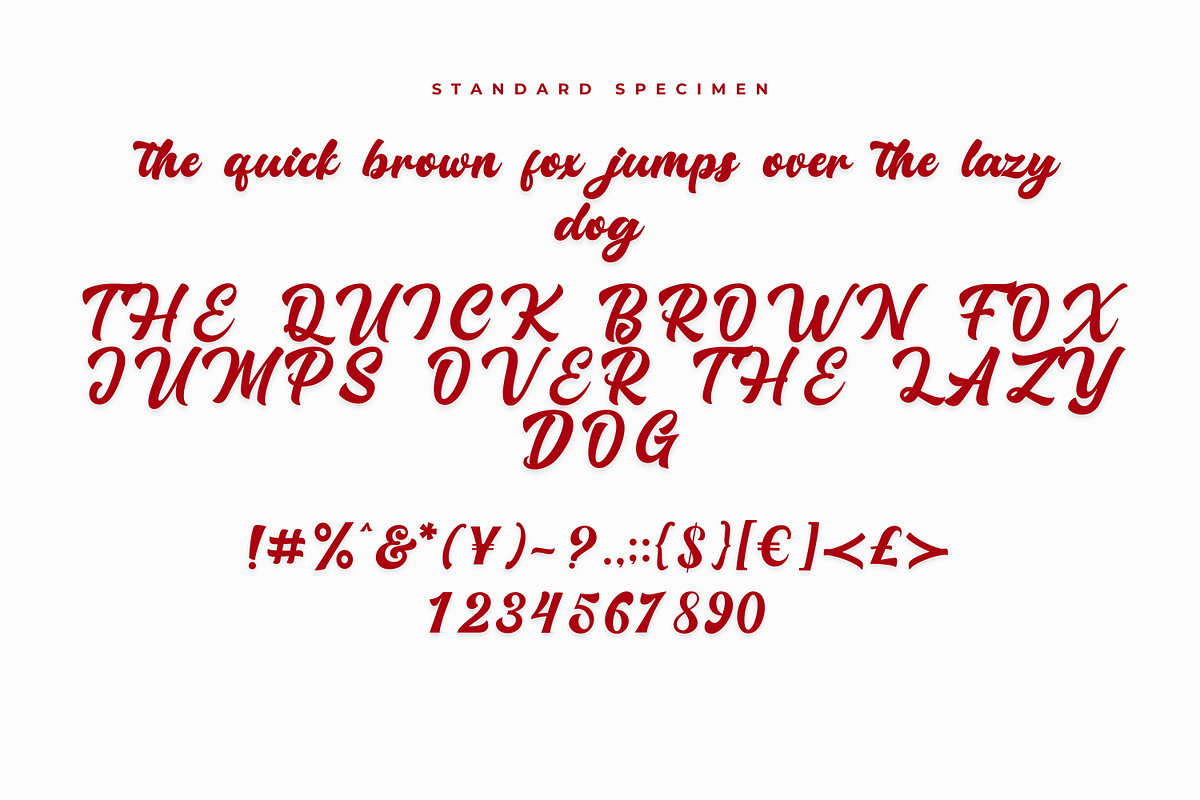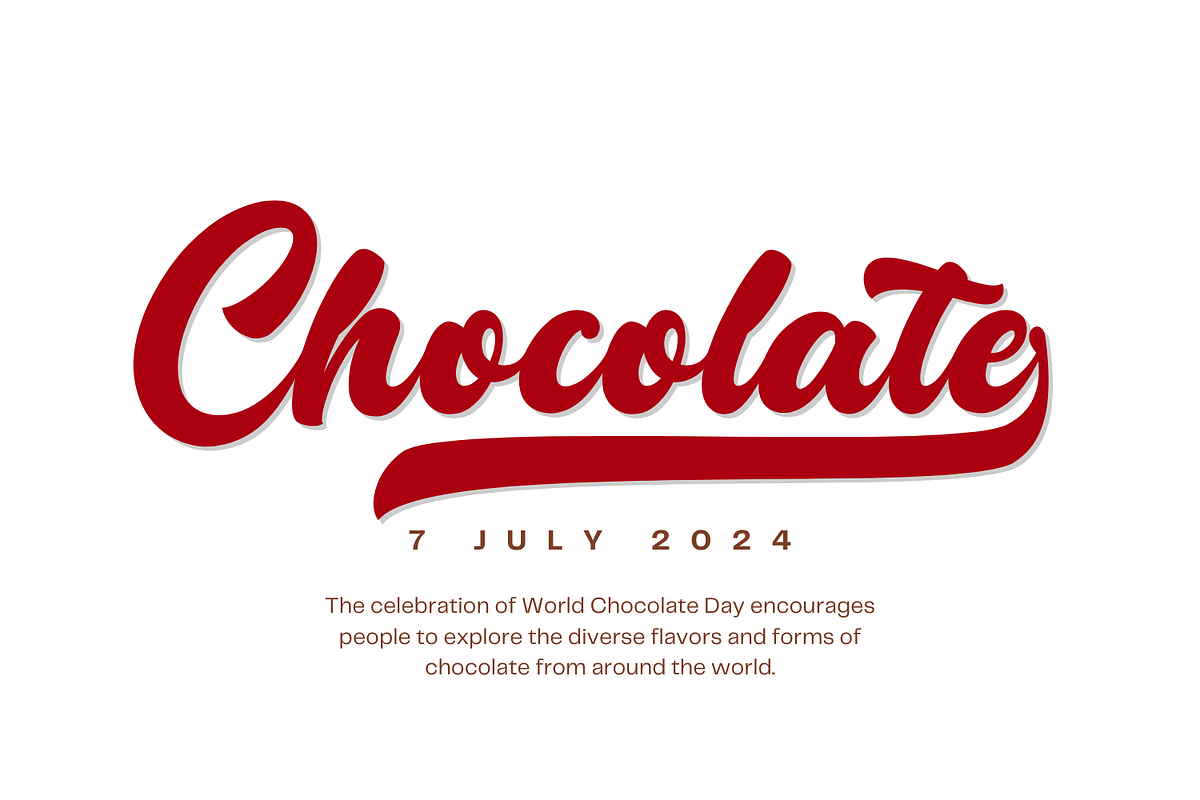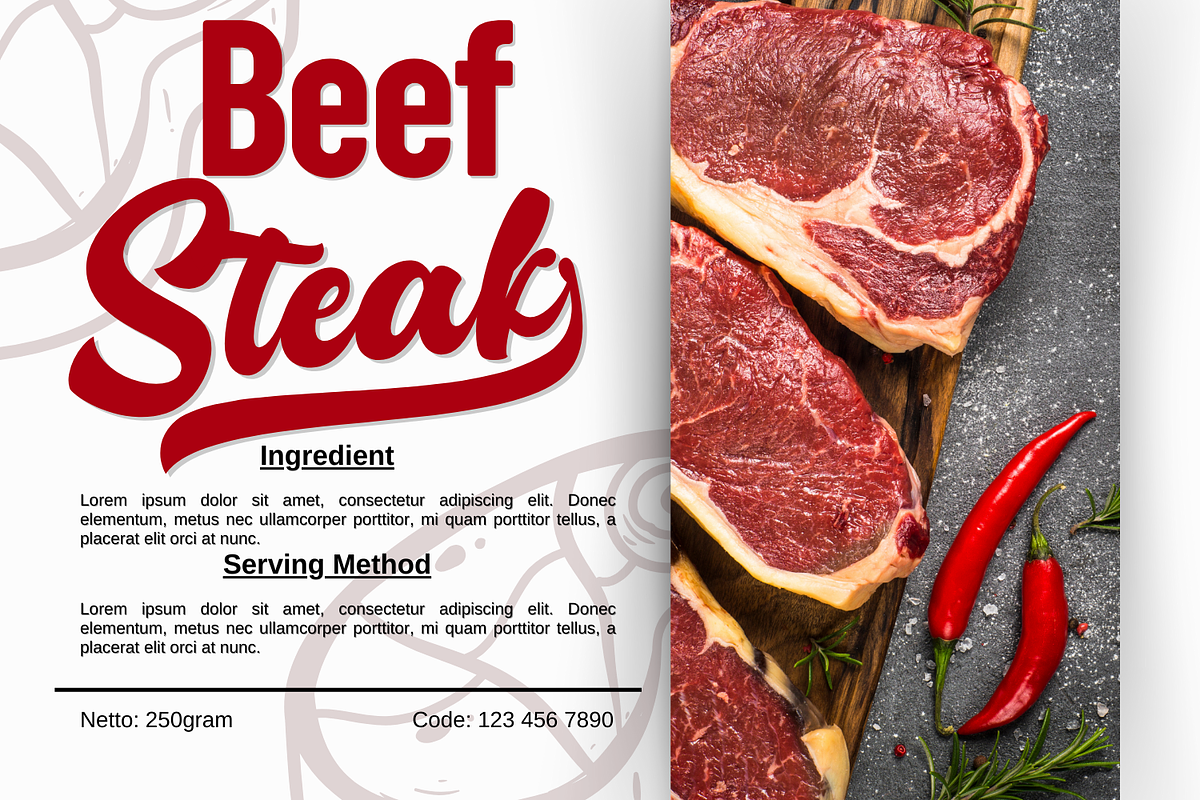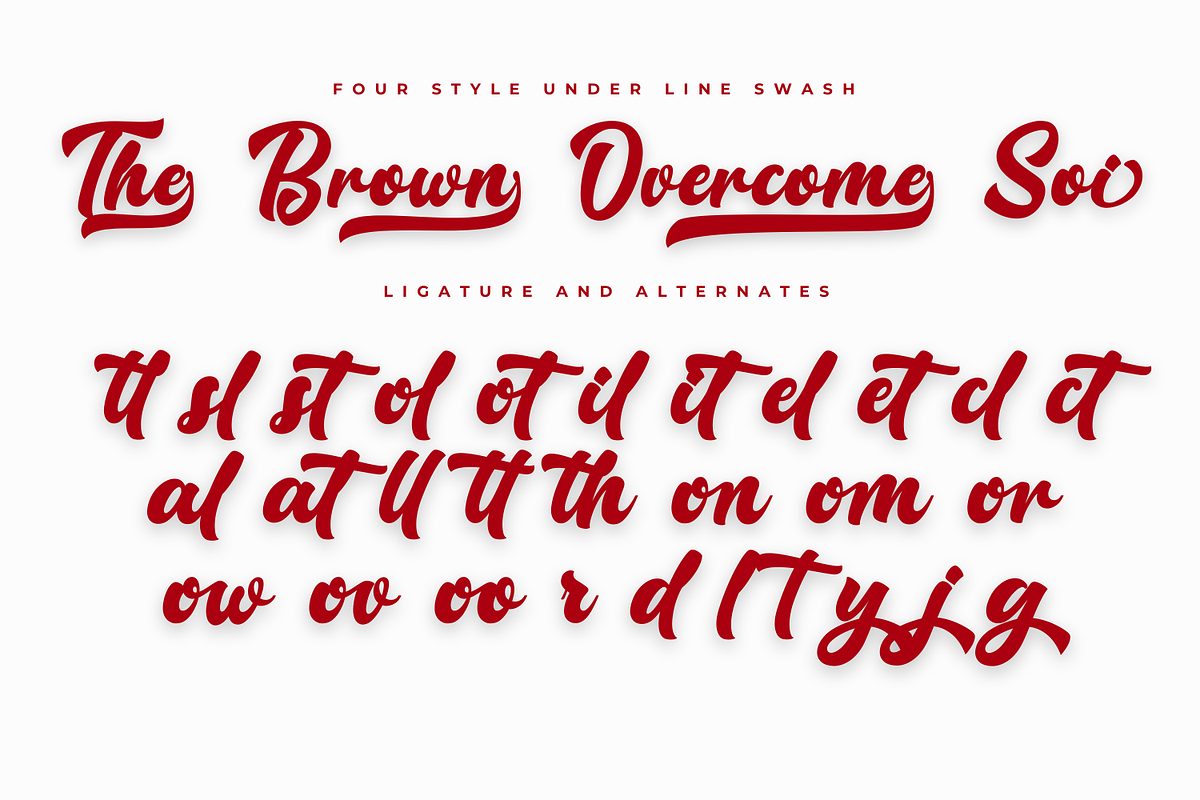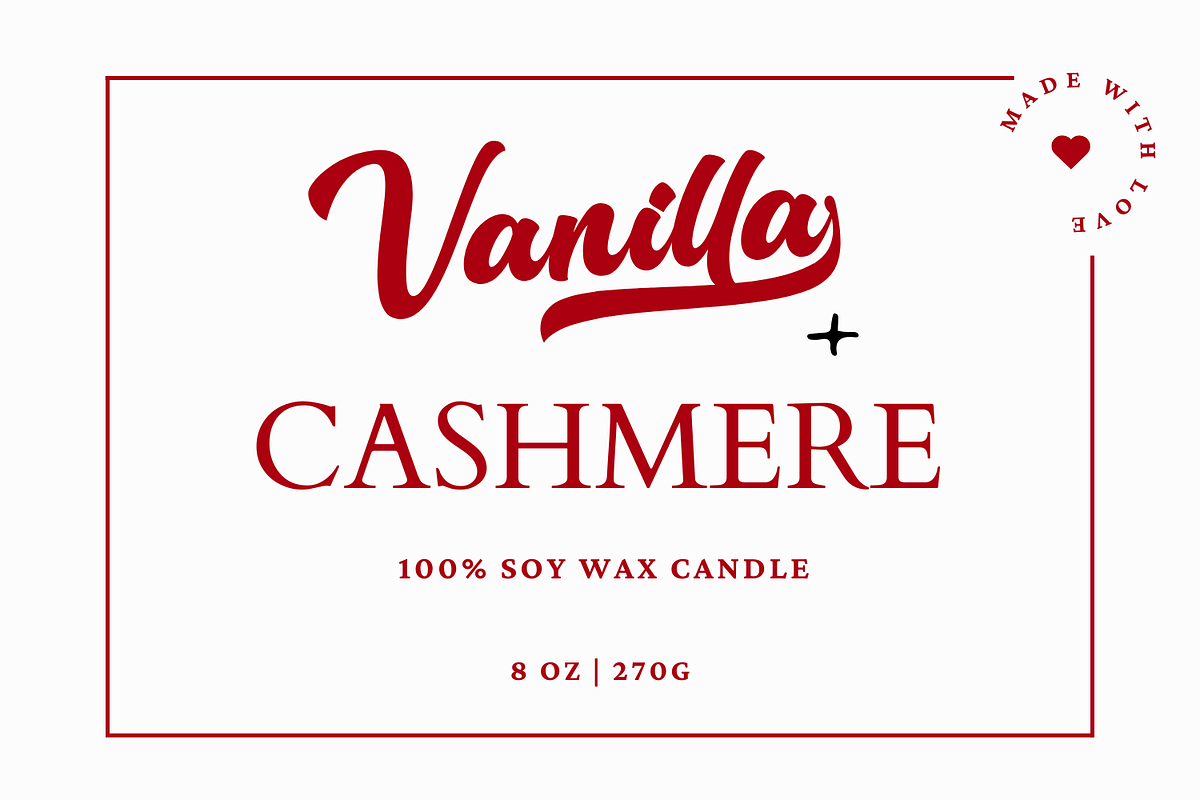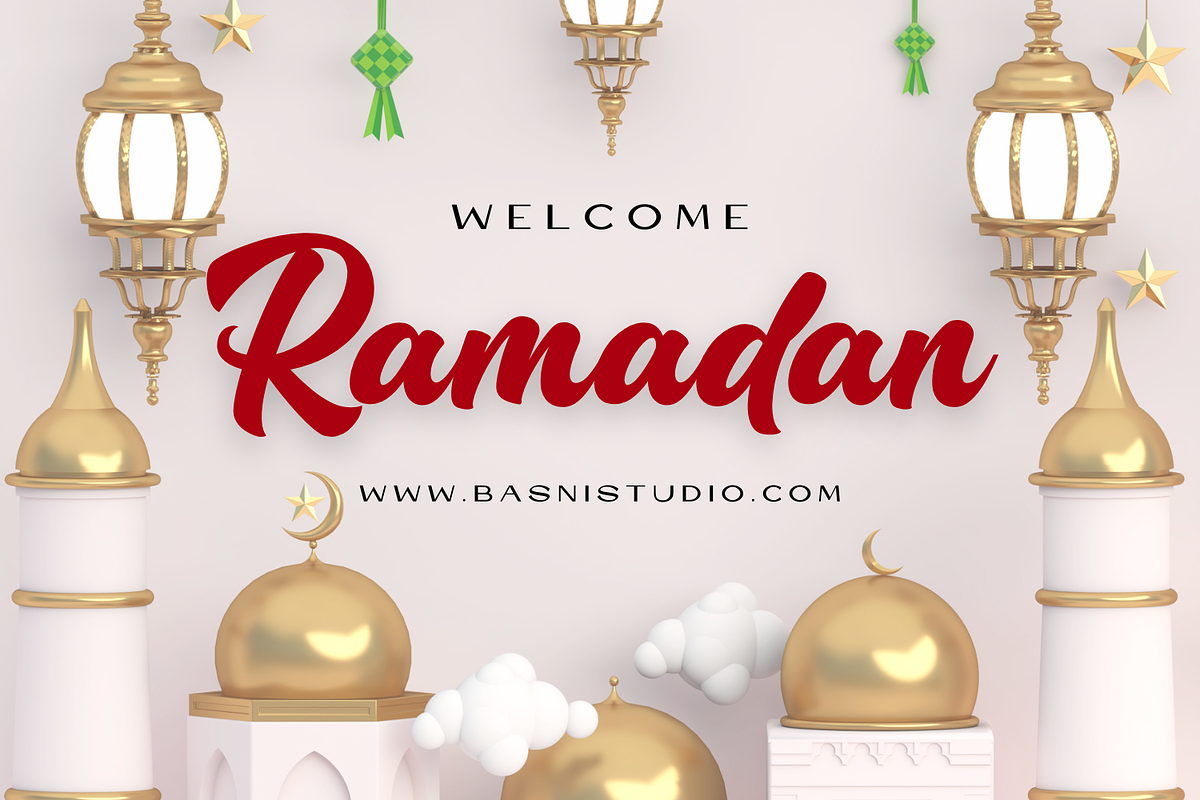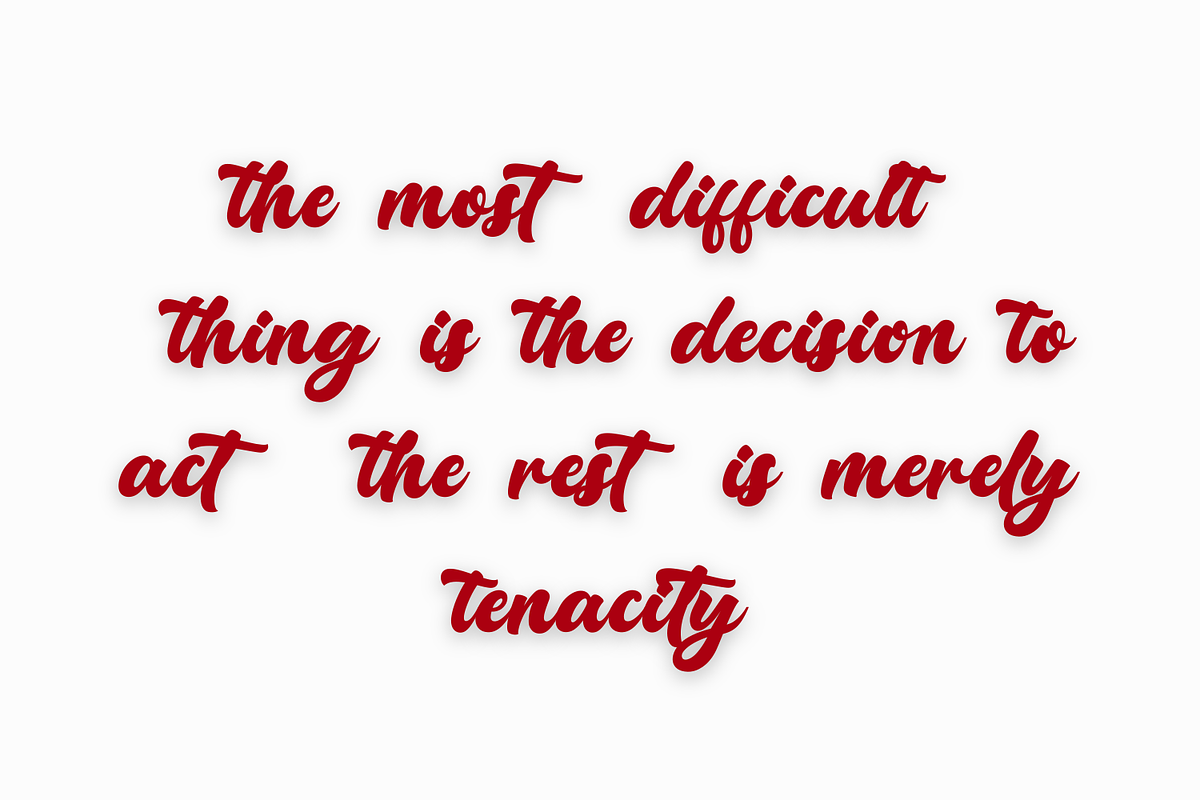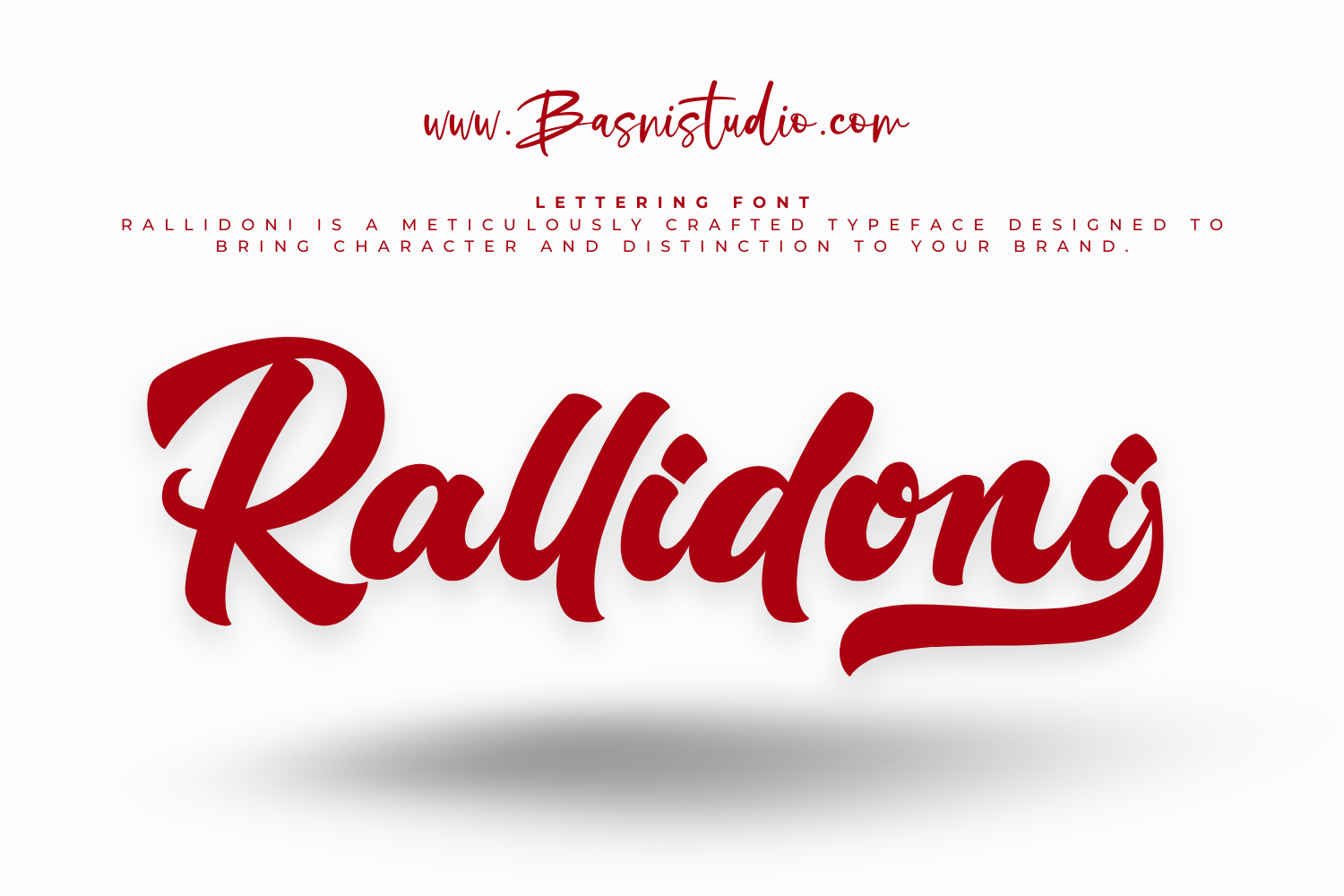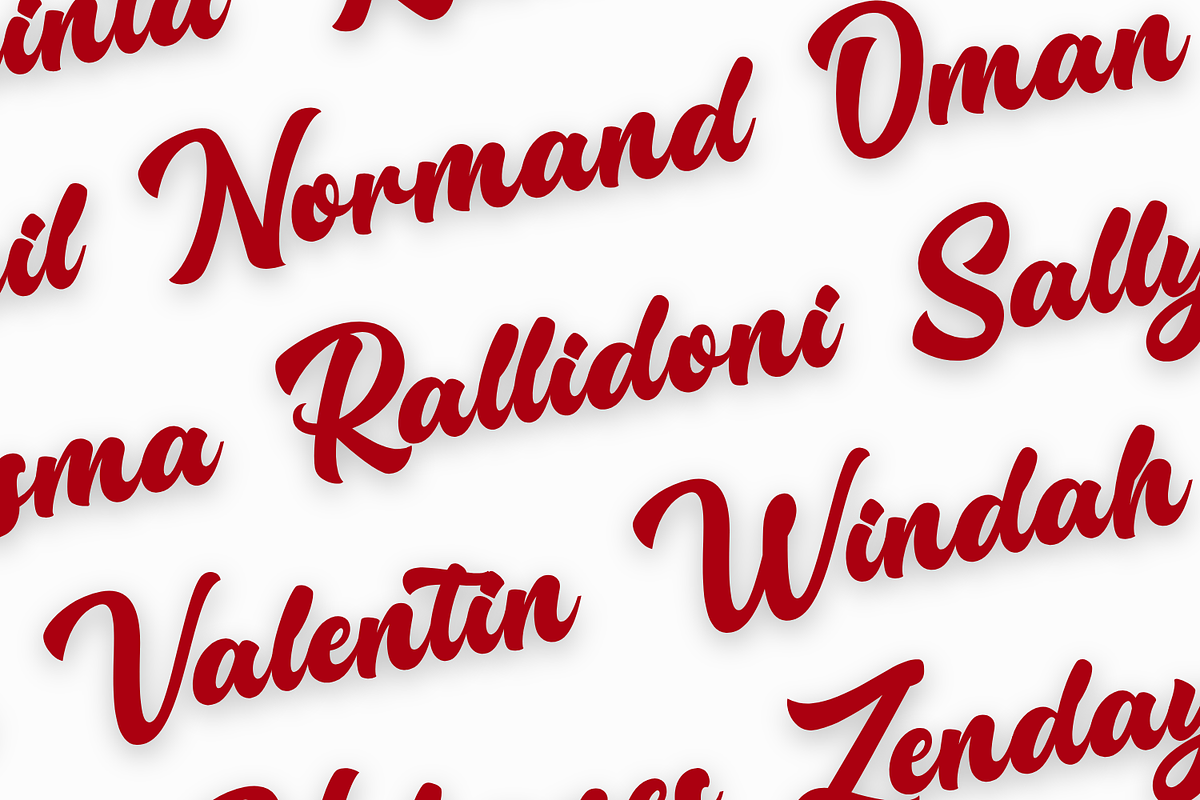
Rallidoni Lettering Font
Introducing Rallidoni Lettering Font: A Typeface That Defines Your BrandTypography isn’t just about letters—it’s about identity, emotion, and impact. Rallidoni is a meticulously crafted typeface designed to bring character and distinction to your brand.
Why Choose Rallidoni? ✔ Unique Logo Lettering Style – A signature design that sets you apart.
✔ Versatile & Bold – Perfect for branding, packaging, and digital presence.
✔ Seamless Integration – Designed for logos, headlines, and creative applications.
Whether you're building a powerful brand identity or crafting a standout logo, Rallidoni gives you the creative edge you need.